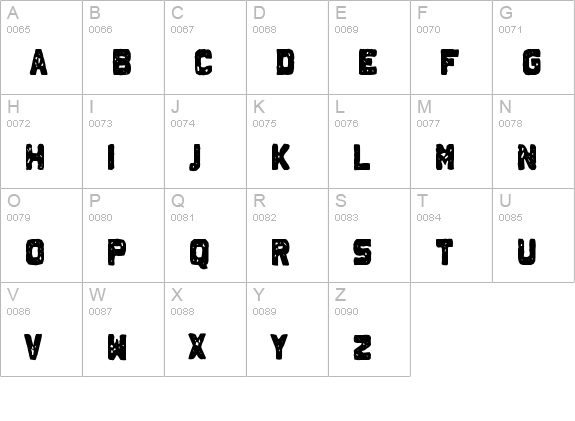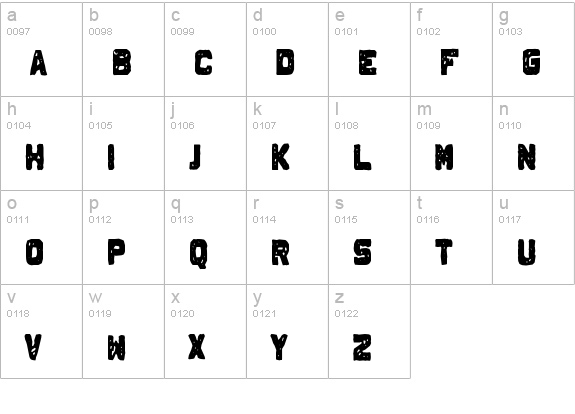
Johnny Homicide Font Details
The Johnny Homicide font is a striking and edgy typeface that exudes a sense of boldness and rebelliousness. With its sharp angles and distinctive letterforms, this font is perfect for creating eye-catching designs that demand attention. Whether you're working on a poster, logo, or branding project, Johnny Homicide will add a touch of attitude and personality to your work. Best of all, the Johnny Homicide font is completely free to download at FontsMarket.com. This means you can easily access this unique typeface and incorporate it into your projects without any cost. Don't miss out on the opportunity to add a touch of edginess to your designs with the Johnny Homicide font - download it today and let your creativity shine!